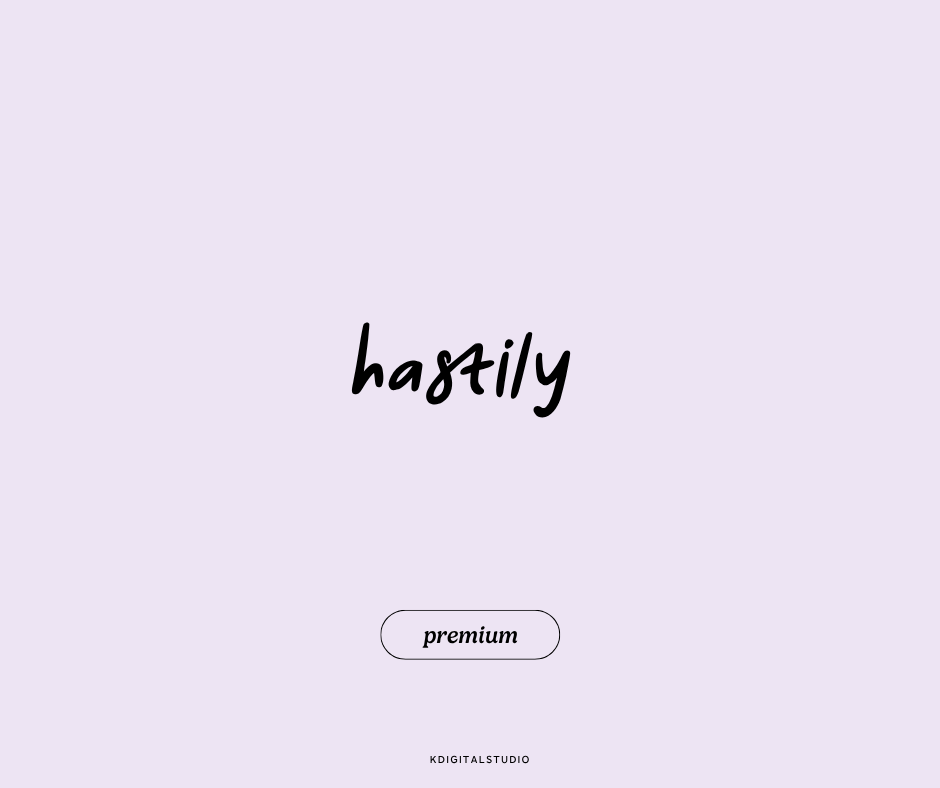
Hastily
Effortlessly cool and full of character.
Sometimes, you need a font that feels spontaneous and real. Hastily captures the essence of quick scribbles and handwritten notes, bringing a sense of authenticity to your pages. It’s perfect for personal journaling, mood boards, and anything that deserves a bit of carefree charm.
Magic Needle is a unique handwritten font that stands out with its delicate loops and tall letters. Perfect for branding, invitations, or any project that calls for a hint of elegance with a bit of whimsy. Its beautifully crafted lines add a touch of enchantment to any page.